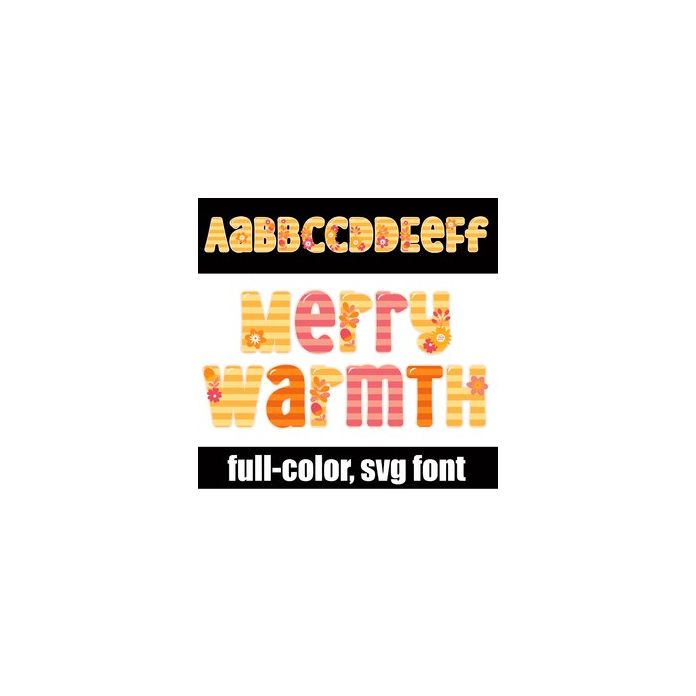
This full-color font features warm-colored striped lettering with florals. There are two alt versions you can access through your system's character map that contains additional colors of all the letters.